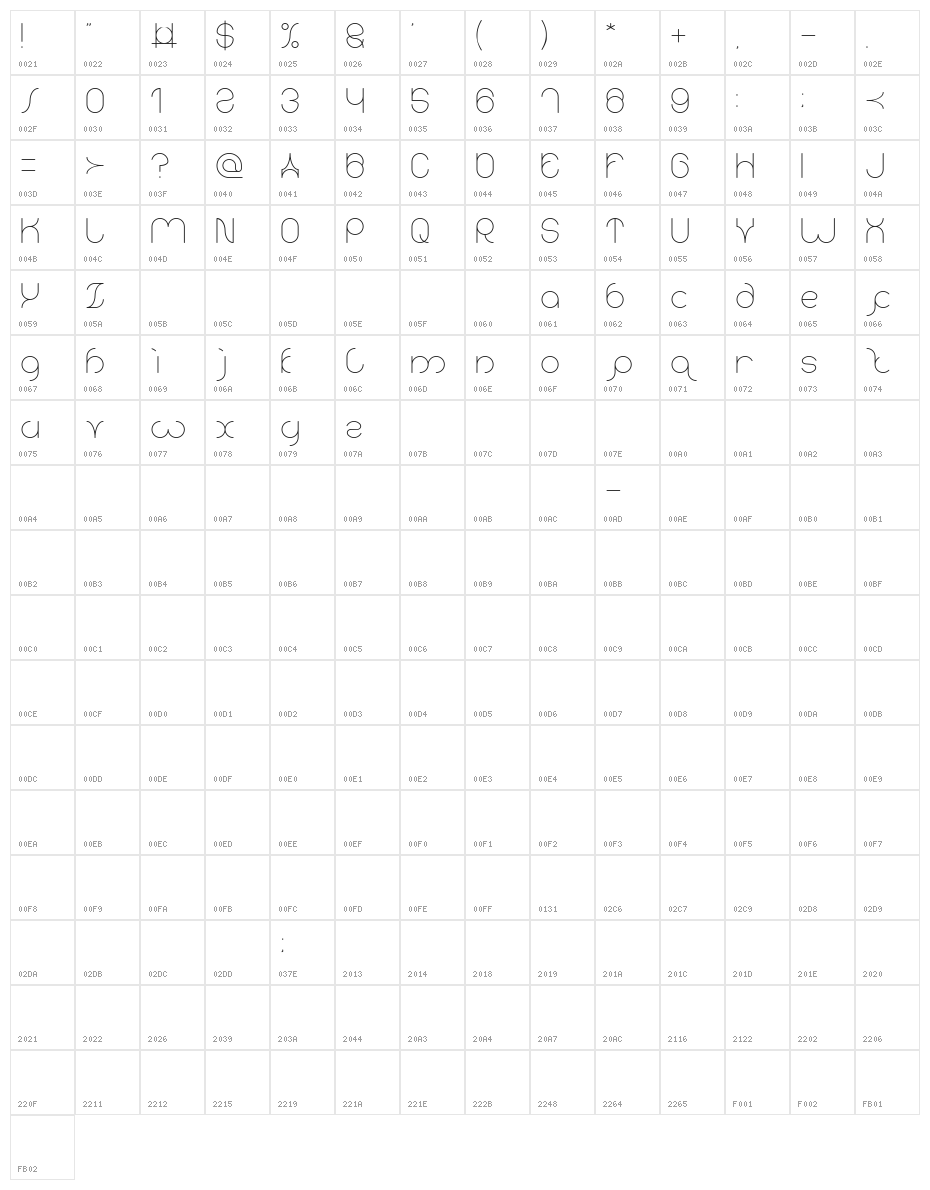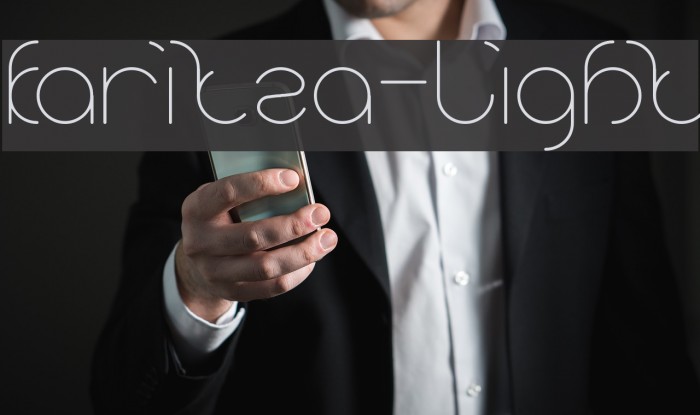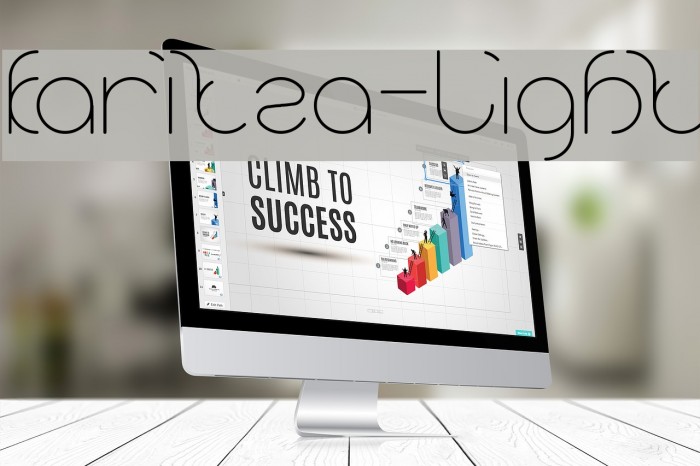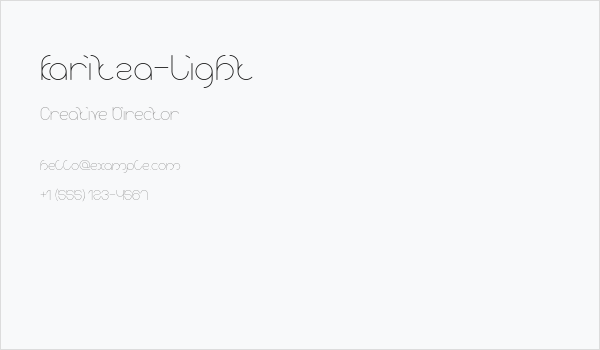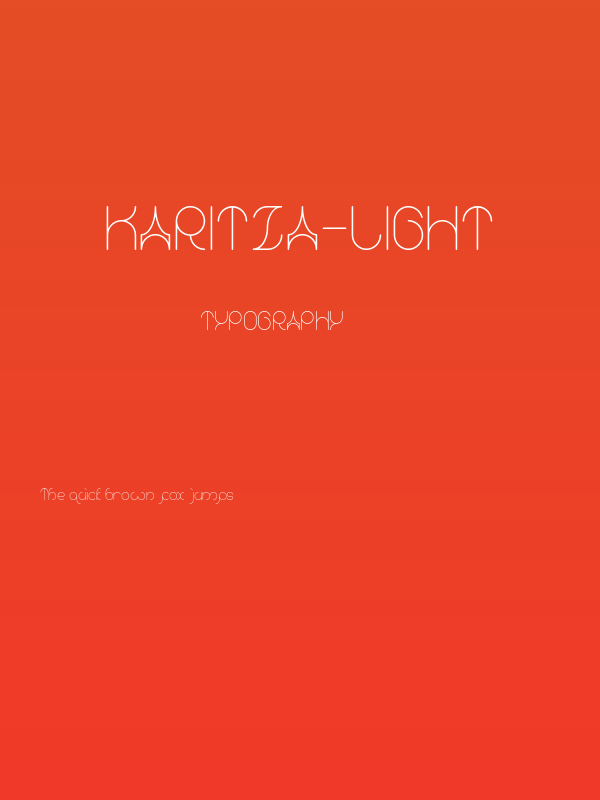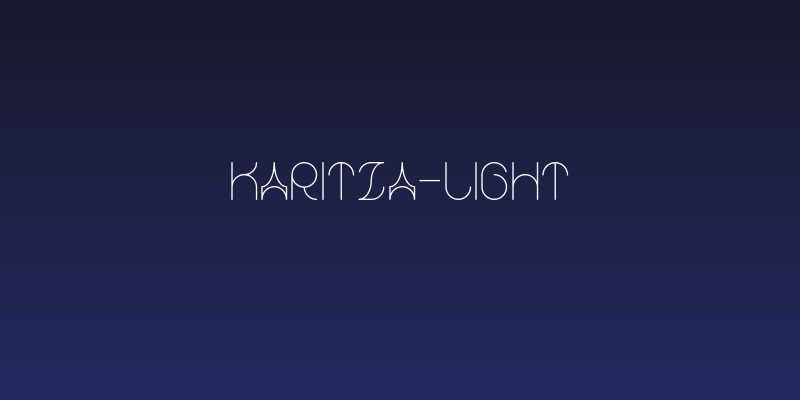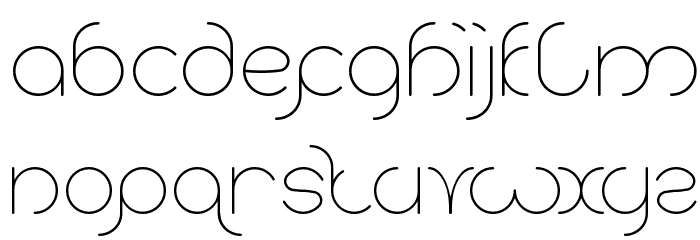
karitza-Light Font
karitza-Light Description
This font features a modern and minimalist design with a geometric structure. The characters are composed of thin, continuous lines that create a sleek and elegant appearance. The uppercase and lowercase letters maintain a consistent style, with rounded edges and a uniform stroke width. The numerals and special characters follow the same design principles, ensuring a cohesive look across all elements. The font's simplicity and clarity make it suitable for various design applications, offering a contemporary aesthetic that is both stylish and functional.
| Proposed Projects | Ideal for branding, logos, modern web design, and minimalist posters. |